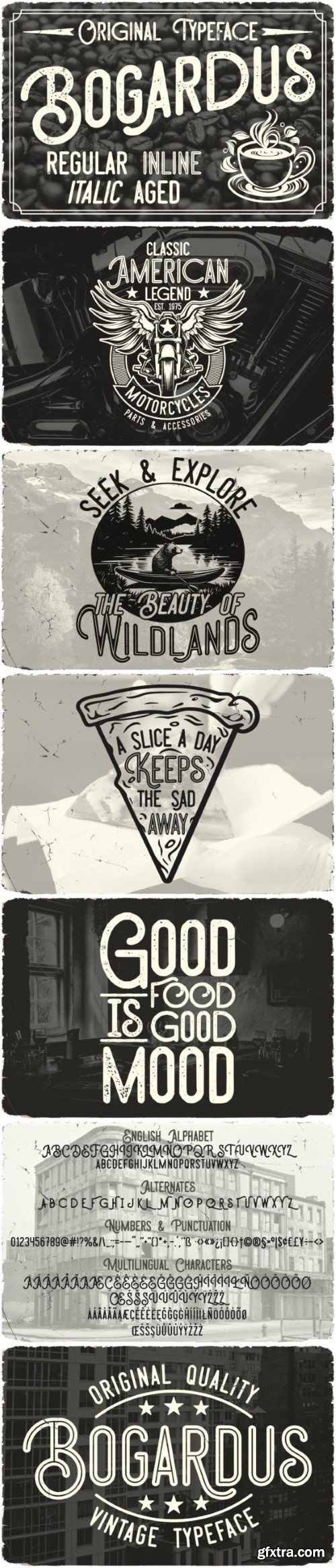
宝格尔字体
Inspired by classic typography, this typeface captures the essence of vintage aesthetics with its intricate details and elegant curves. Each letter of Bogardus carries an air of sophistication, reminiscent of an era where craftsmanship and attention to detail reigned supreme. The carefully designed bold strokes create a sense of authority and authenticity, making Bogardus the perfect choice for labels, branding, packaging, and signage that seek to evoke a sense of heritage and tradition. Whether you’re designing for a retro-inspired project or simply looking to add a touch of vintage elegance, Bogardus brings a touch of old-world charm to your typographic creation.